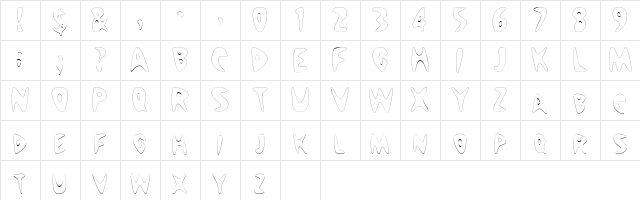
NuWaveCondensedOutline Regular
Design Context for NuWaveCondensedOutline Typeface
NuWaveCondensedOutline is built around its visual character rather than neutral utility — its distinctive forms are designed to make an impression at display sizes.
Font Pairing: Pair with a clean neutral sans-serif for body copy to let NuWaveCondensedOutline's character lead without overwhelming the composition.
Pro Tip: Use NuWaveCondensedOutline exclusively at display sizes — it was designed to be seen, not read at length. Let a neutral companion handle body copy.